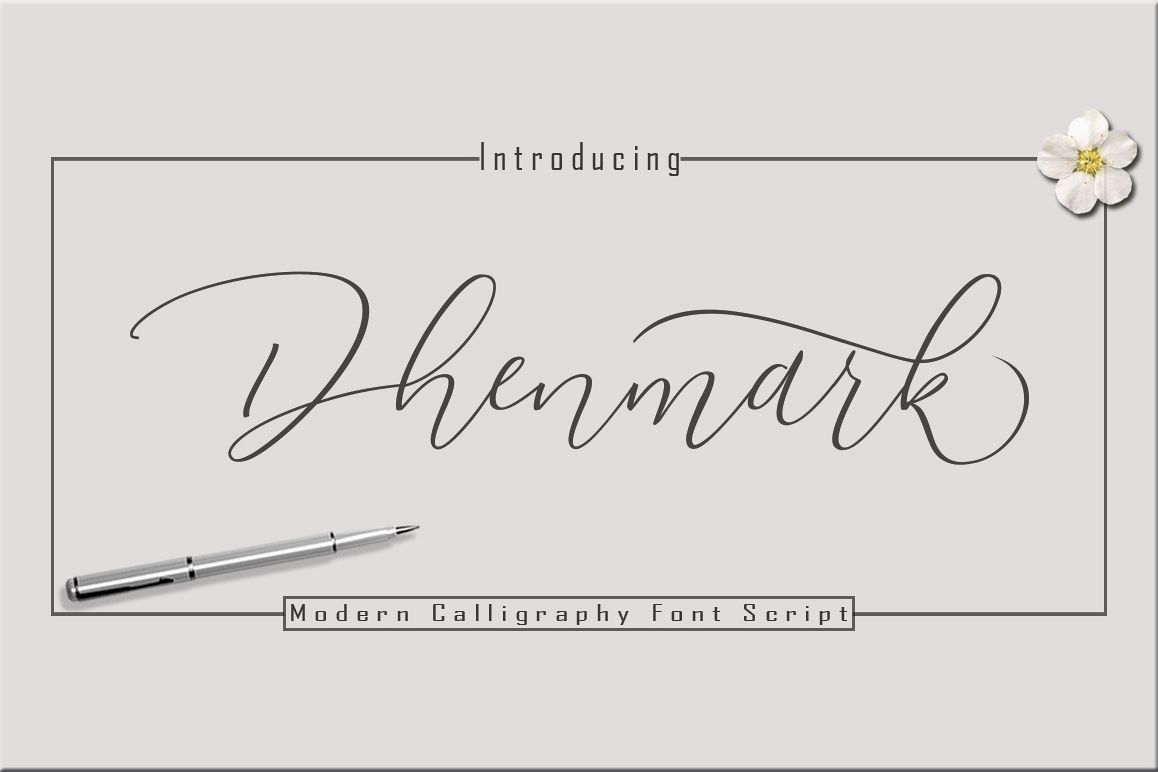
Dhenmark Font Duo
Dhenmark Font Duo Modern Calligraphy. This font was designed by handwriting, and it has a modern and unique forms of calligraphy, the writing style is very natural. Dhenmark Font Duo has a very unique style of calligraphy, it is very suitable for use in the work of modern design.
The Features of this fonts is:
* Standart ligatures
* Stylistic Alternates
Can be used for various purposes.such as headings, logos, wedding invitation, t-shirt, letterhead, lable, news, posters, badges etc. To enable the OpenType Stylistic alternates, you need a program that supports OpenType features such as Adobe Illustrator CS, Adobe Indesign & CorelDraw X6-X7.a font that made the hand by having the character up and down like a dancer. Dhenmark Font Duo has a very unique style of calligraphy, it is very suitable for use in the work of modern design.